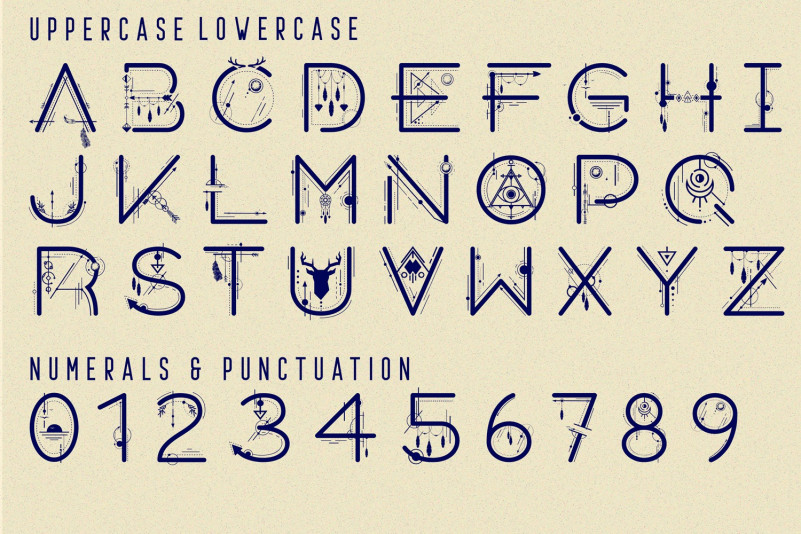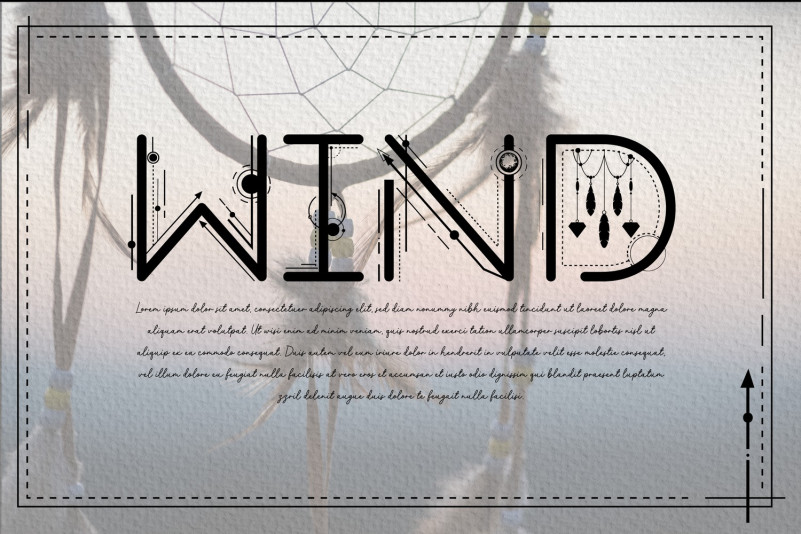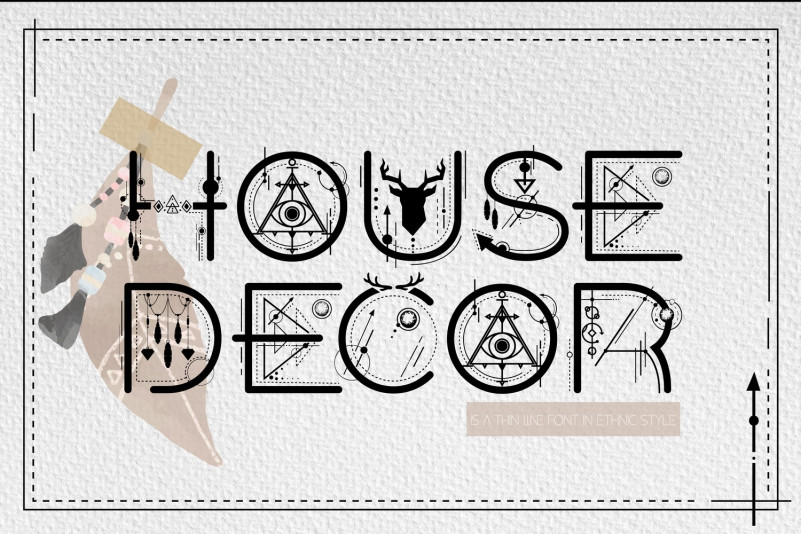
House Decor Font
House Decor Font is a display font decorated with tribal patterns. The typeface includes Decorative, Black and Light versions. The font is easy to use in various design programs or without any program. Pine, snowflake, peppermint and MORE themed fonts. Use them on Christmas cards, winter crafts for decor and more! These fonts include numbers and basic punctuation.